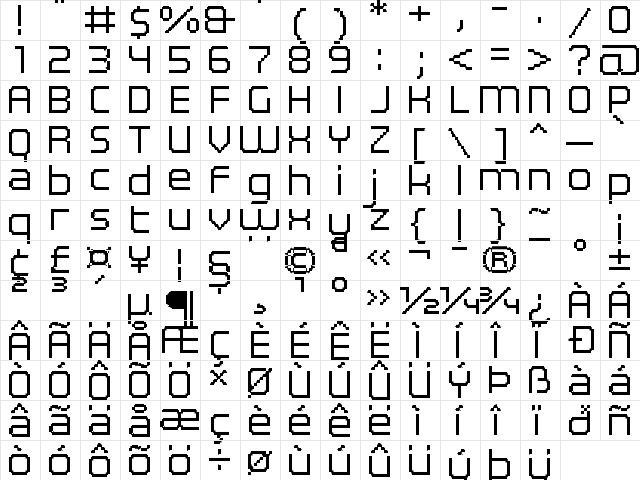
UF Elementar Basica 13.11.5 a Regular Font Preview
UF Elementar Basica 13.11.5 a Regular
UF Elementar Basica 13.11.5 a Regular Font Details
| Foundry | Miguel Hernதez and Ultrafonts.com |
| Designer | Gustavo Ferreira |
Design Context for UF Elementar Basica 13.11.5 a Typeface
UF Elementar Basica 13.11.5 a takes a measured approach to typography — its balanced proportions and neutral character make it a reliable workhorse for both digital and print work.